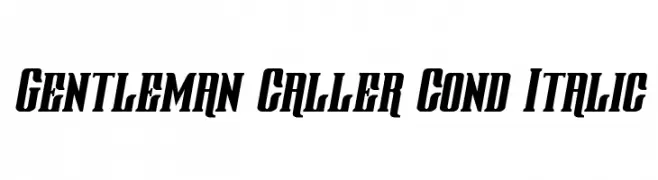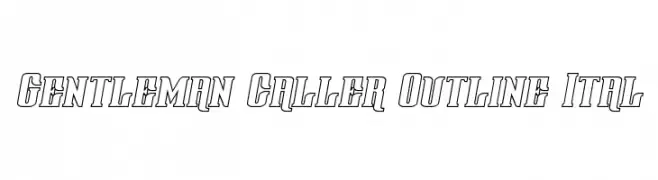
A bold, expanded italic font with high contrast and a vintage-modern appeal.
A bold, outlined, italicized font with a vintage, decorative style.
A bold, condensed, and italicized font with a dynamic and elegant style.